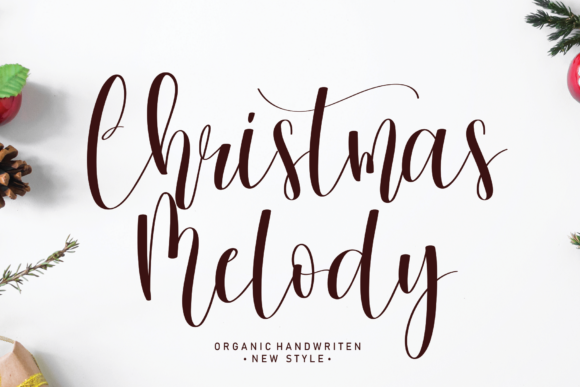
Journey into a world of enchanting scripts, where words dance and emotions ignite. Discover Christmas Melody Font, a symphony of elegant curves and playful strokes, designed to capture the essence of romance and creativity.
Crafted by the visionary minds at Misterletter.co, Christmas Melody Font is a handwritten masterpiece that weaves together the charm of nostalgia with the allure of contemporary style. Its organic flow and delicate details evoke a sense of intimacy and warmth, making it the perfect companion for those seeking to express their heartfelt messages with a touch of artistry.
Let your imagination soar as you explore the endless possibilities of Christmas Melody Font. Create breathtaking invitations that set the tone for a magical celebration, from intimate gatherings to grand soirées. Design product packaging that exudes elegance and sophistication, leaving a lasting impression on your customers.
Transform ordinary quotes into works of art, allowing the words to dance across the page with a graceful fluidity. Elevate your crafter projects with a touch of whimsy, adding a personal touch that makes each piece truly unique. Adorn your labels with a distinctive charm, ensuring that your products stand out from the crowd.
Capture the beauty of life's precious moments with watermarks that whisper tales of love, laughter, and cherished memories. Create logos and branding that radiate warmth and personality, leaving an indelible mark on the hearts of your audience.
With Christmas Melody Font, your creations will resonate with an emotional depth that transcends the ordinary. Indulge in the art of storytelling, pouring your heart and soul into every word, every line, and every design.